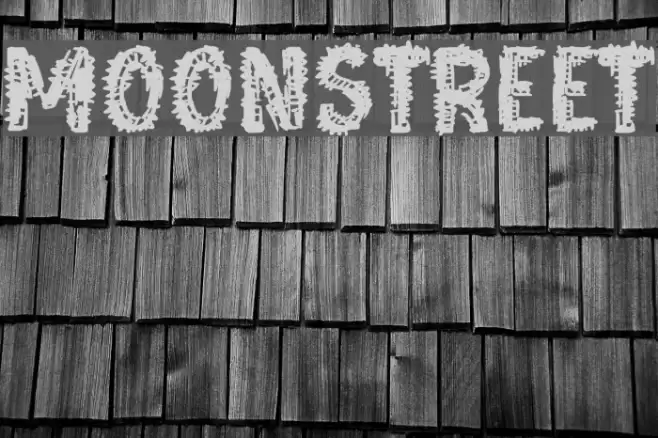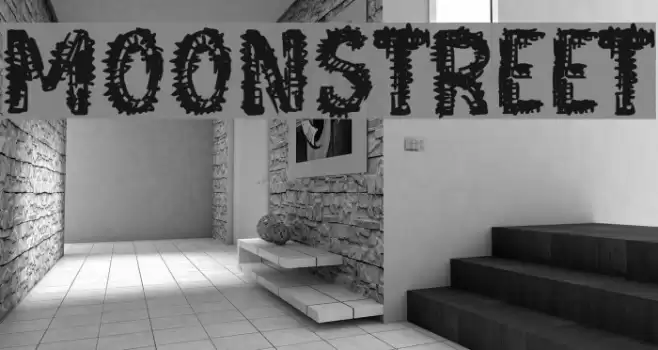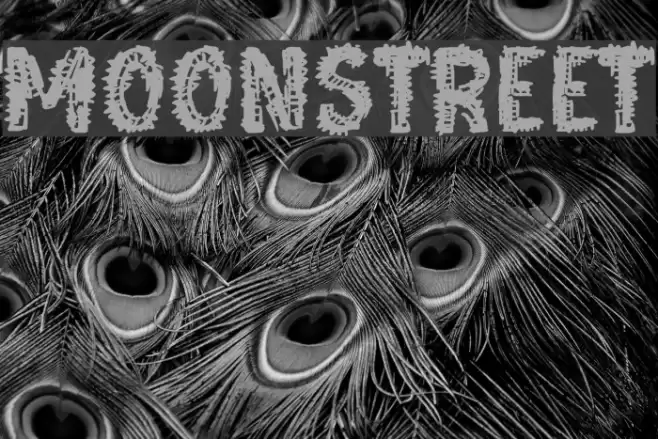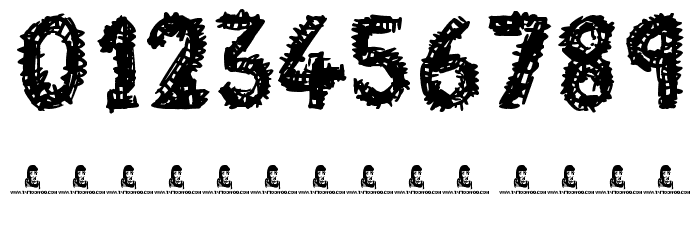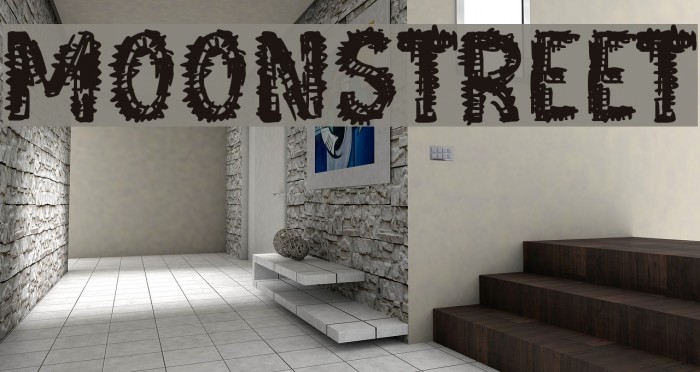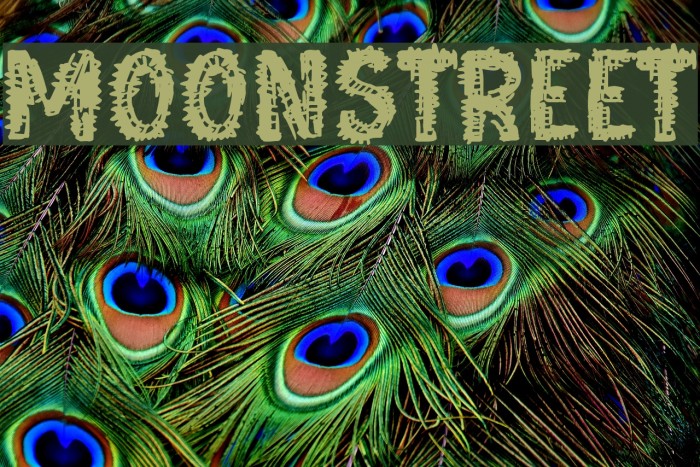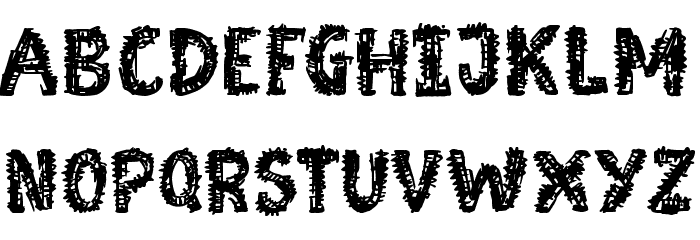
Moonstreet Font
Moonstreet Description
This font features a bold and playful design with a hand-drawn, sketch-like appearance. The characters are filled with irregular, jagged lines that give them a textured, almost chaotic look. Despite the roughness, the letters maintain a clear and legible form, making them suitable for creative and informal projects. The uppercase and lowercase letters share a consistent style, while the numbers and special characters complement the overall aesthetic. This font exudes a sense of fun and creativity, perfect for designs that aim to stand out.
A bold, hand-drawn font with a playful, sketch-like appearance from Uncategorized fonts.